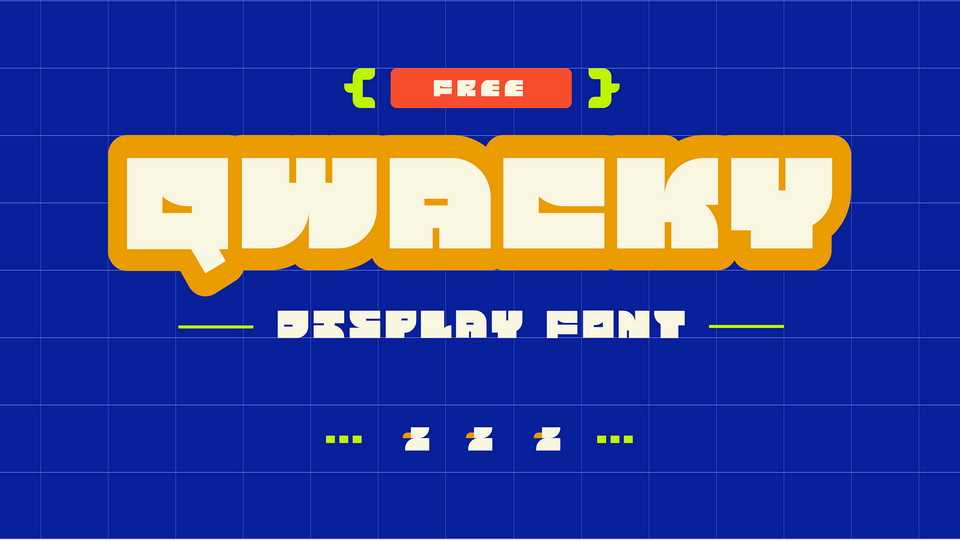
Download Qwacky font, a bold and fun modular display typeface for loud messages. Qwacky works best for posters, headlines, covers, games and artworks.
Designer: Anjali Sanu